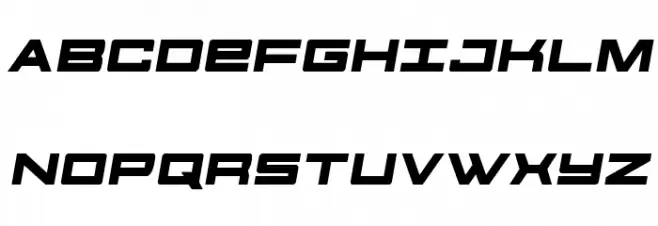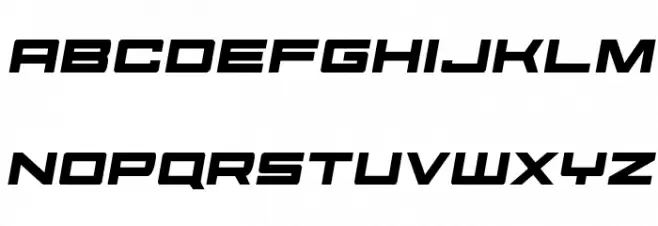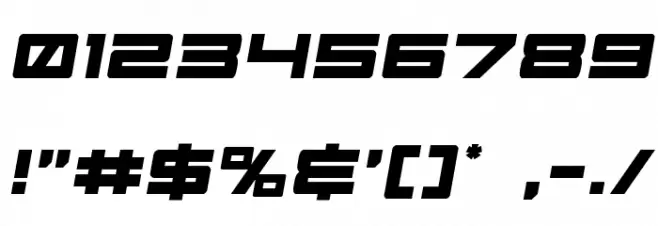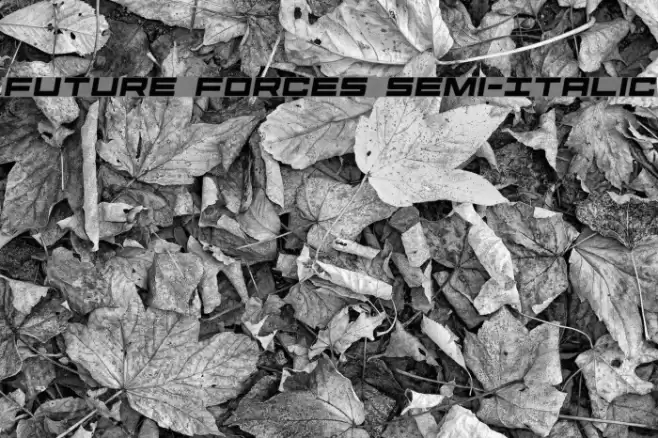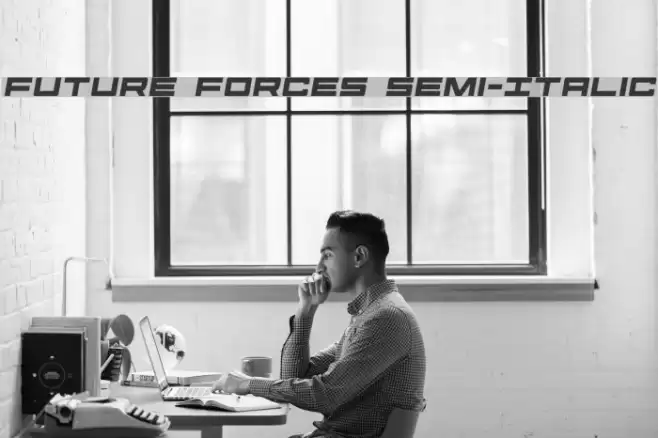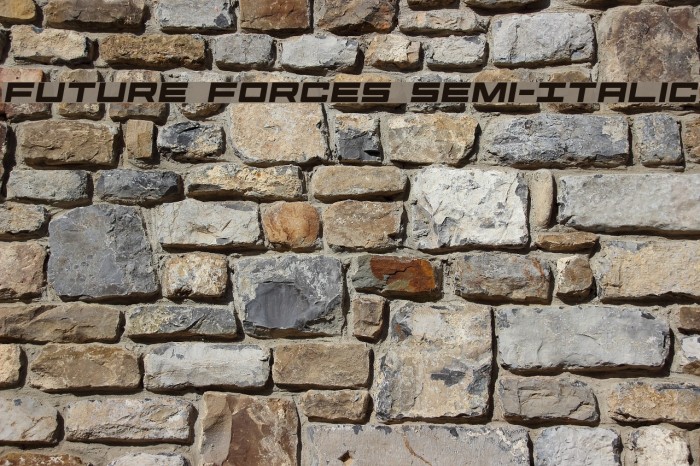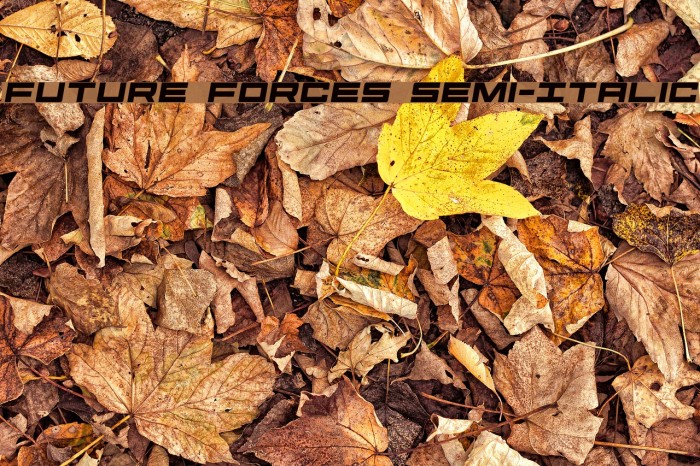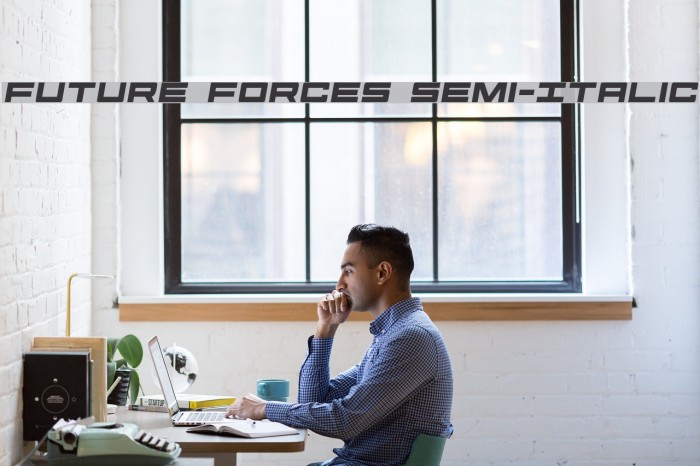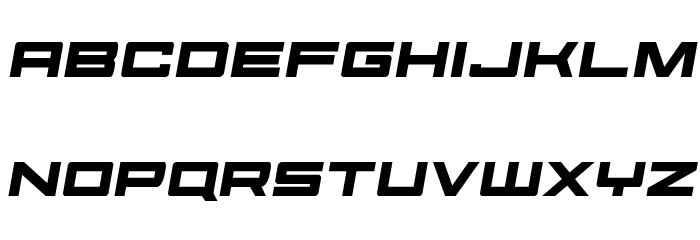
Future Forces Semi-Italic
This font features a futuristic and dynamic design, characterized by its semi-italic style that gives it a sense of motion and speed. The characters are bold and angular, with a distinct geometric structure that emphasizes sharp edges and clean lines. The uppercase and lowercase letters maintain a consistent style, while the numerals and special characters complement the overall aesthetic. The font's design is modern and sleek, making it suitable for projects that require a contemporary and tech-savvy appearance.
A futuristic, semi-italic font with bold, angular characters and a modern aesthetic.
- Proposed Projects: Ideal for technology branding, sci-fi themed designs, video game titles, and modern advertising campaigns.
- Use Case: Headlines, Logos, Branding